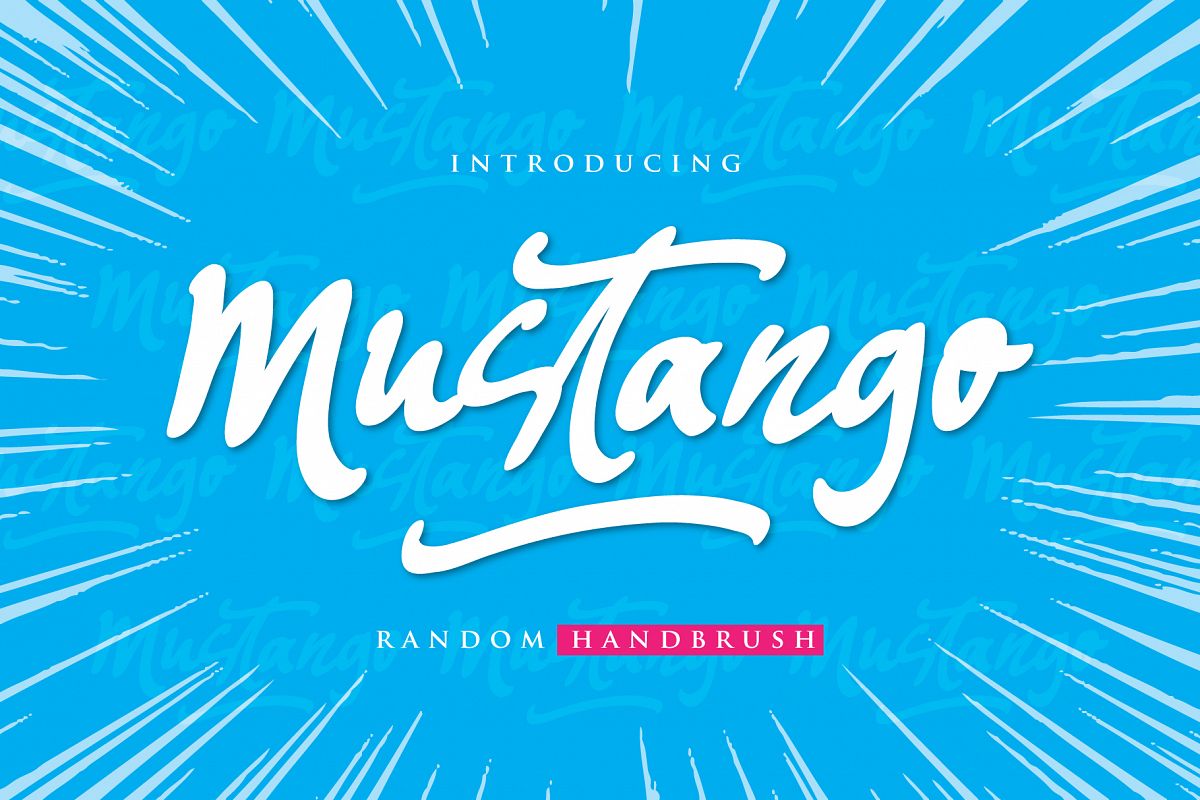
Mustango
Mustango Font is random handbrush, contemporary approach to design, handmade natural with an less regular baseline. Suitable for use in title design. Such as apparel, invitations, children books tittle, stationery design, quotes, branding, logos, greeting card, t-shirt, packaging design, poster and more.